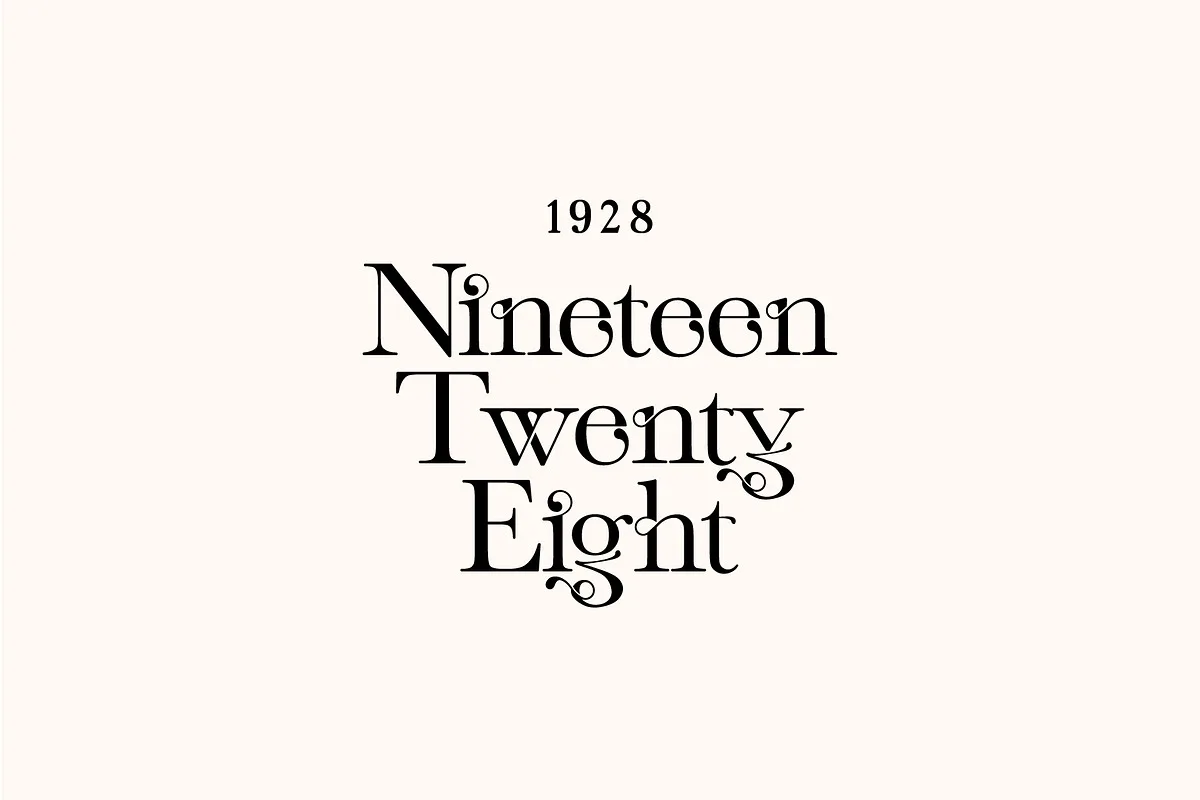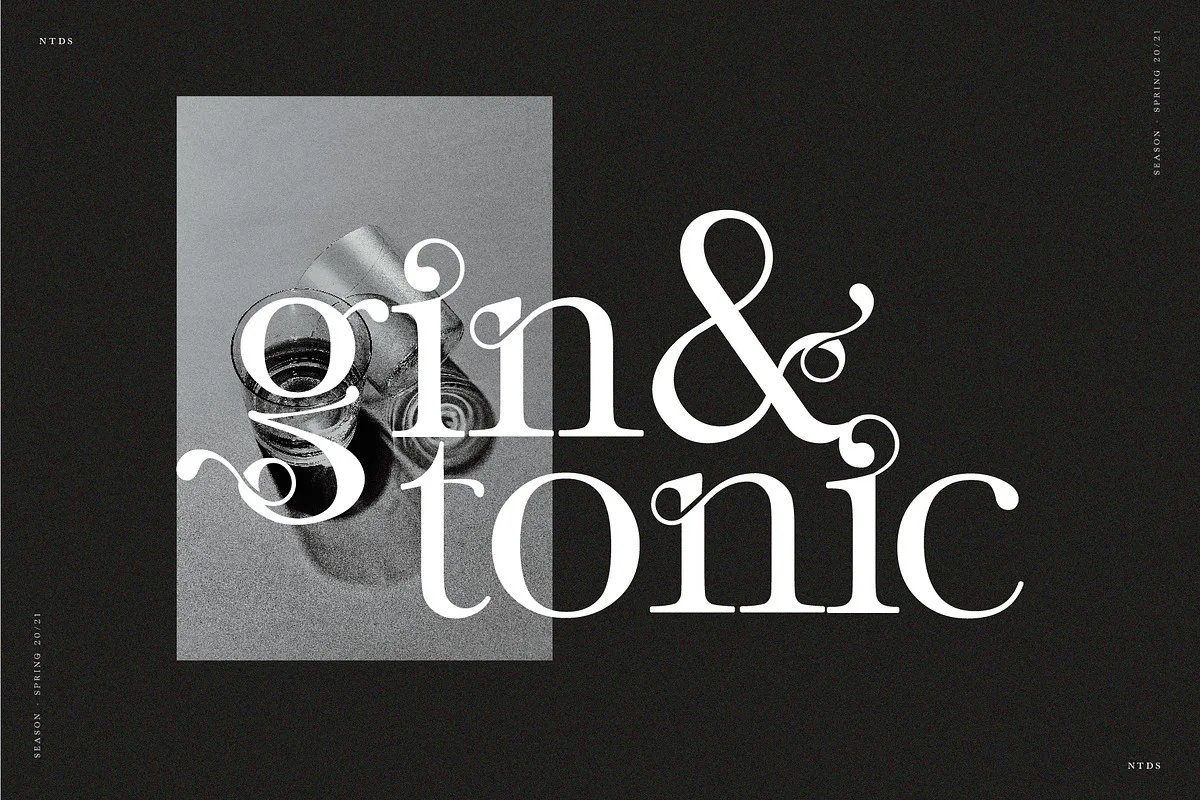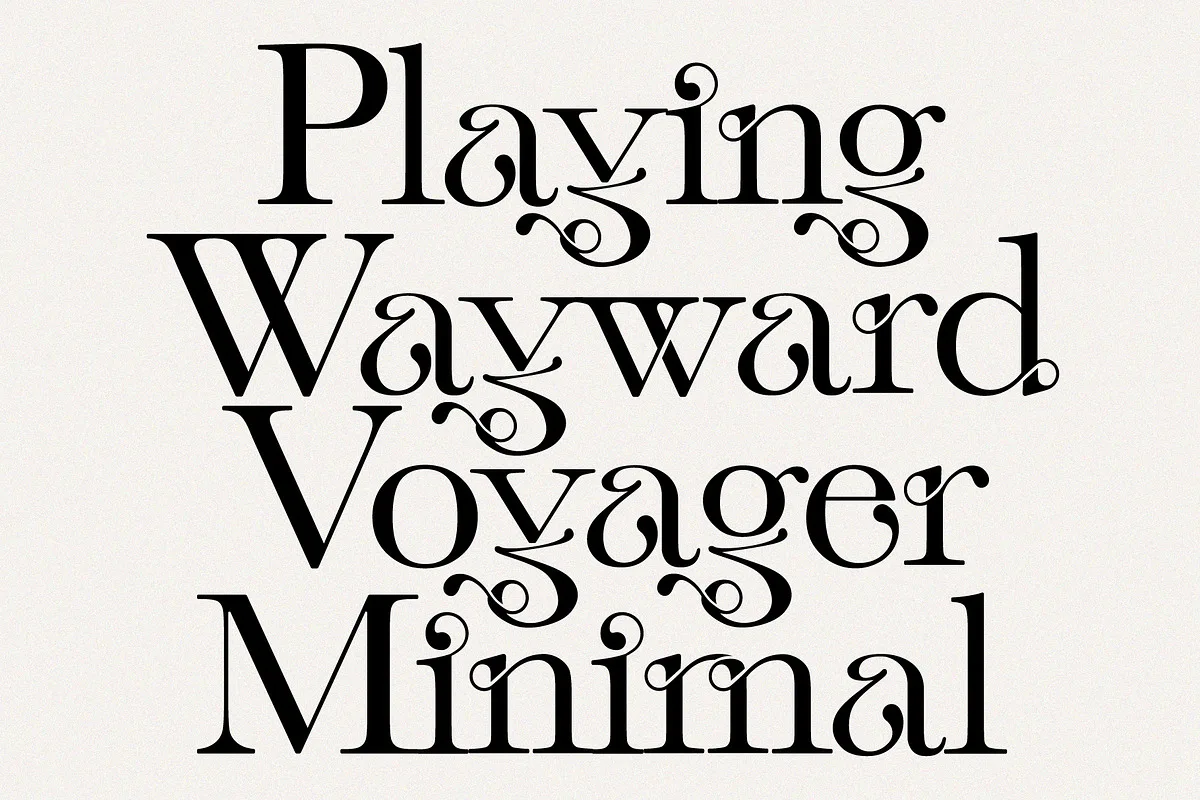
Vineyard is an ornate serif with lots of flair. Beautiful curves flow through the typeface like vines in a vineyard. New unique letter styles are done in a low contrast style to give Vinyard a classic type look. Create a standout logomark, headline or invitation in seconds.